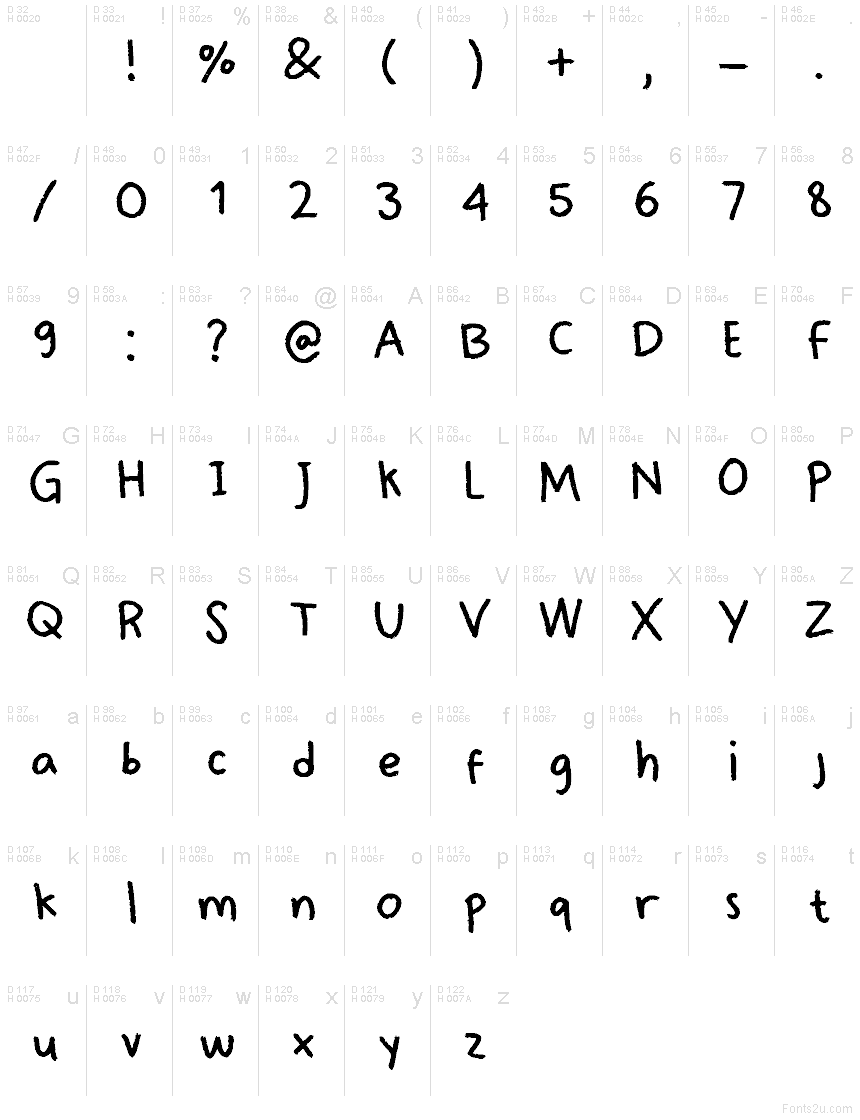
Shhhh Its A Crayon Regular
Shhhh Its A Crayon font by Shhhhne Aryanto is a playful handwritten font that brings a hand-drawn aesthetic to your designs. It has a childlike charm with a friendly look, achieved with its smooth bends and quirky edges. Visually appealing and extremely versatile, the free font has an organic feel and a casual style that invites readers to explore.
Get creative as you display Shhhh Its A Crayon on children’s books covers, posters, invitation cards, packaging boxes or labels. This lovely typeface can also be used on website or blog headers, magazine covers or pages, apparel prints (t-shirts), social media posts graphics and more!